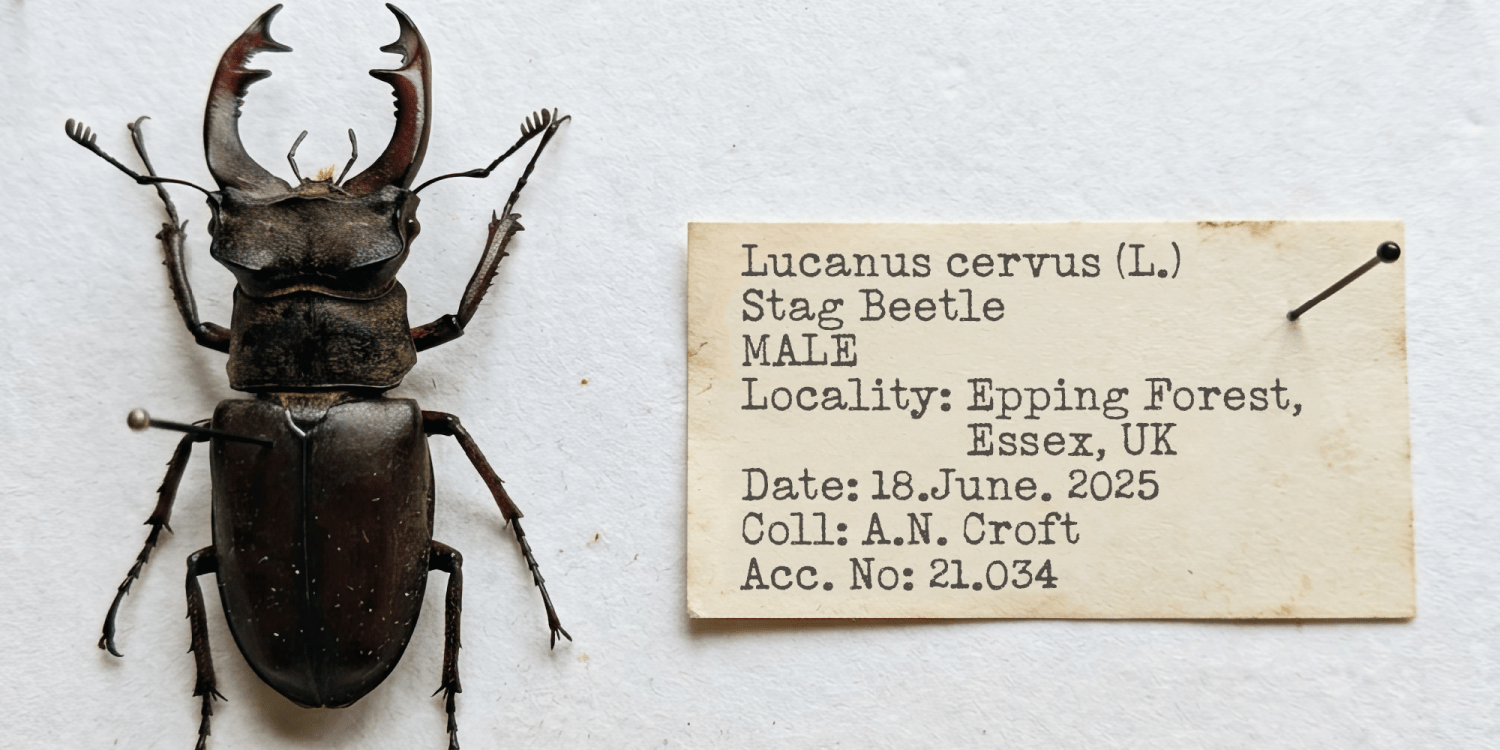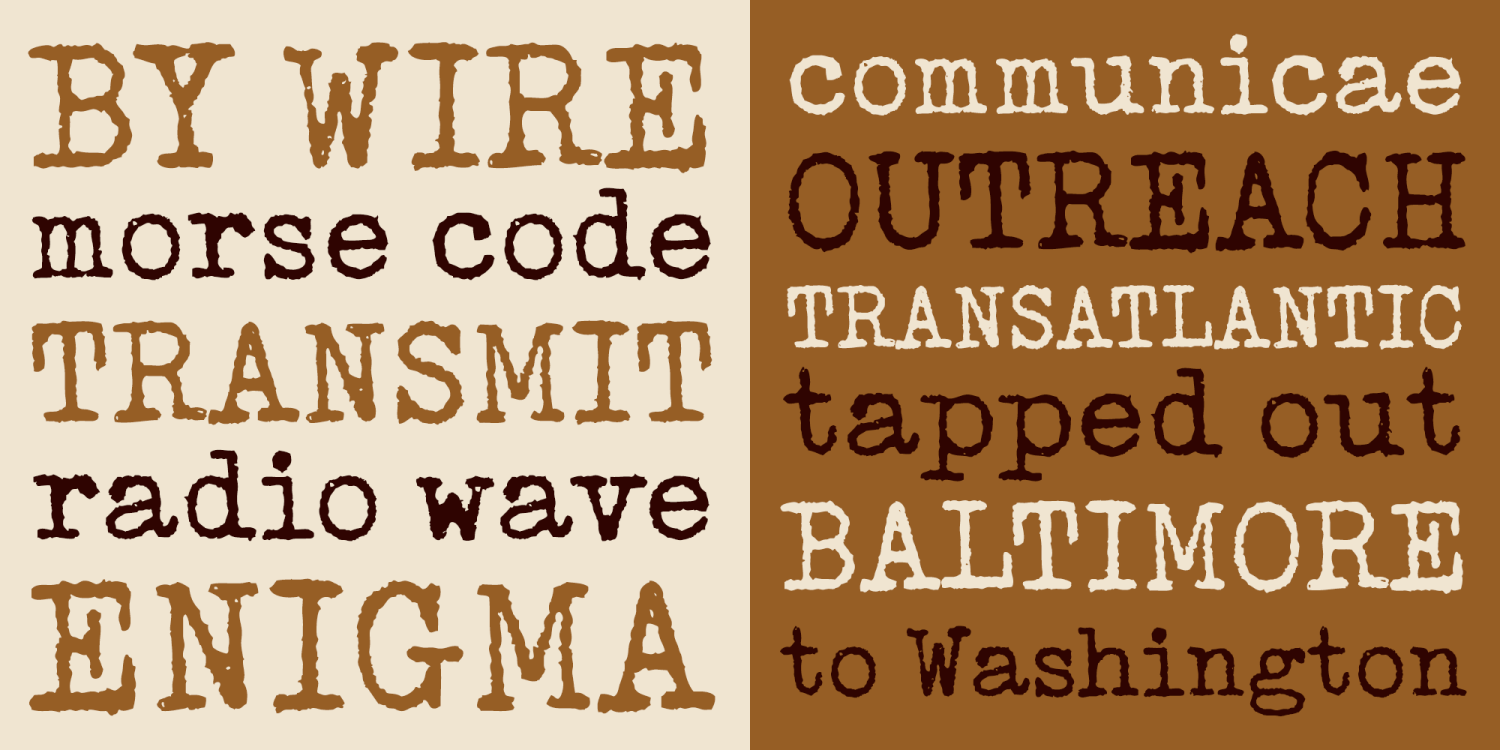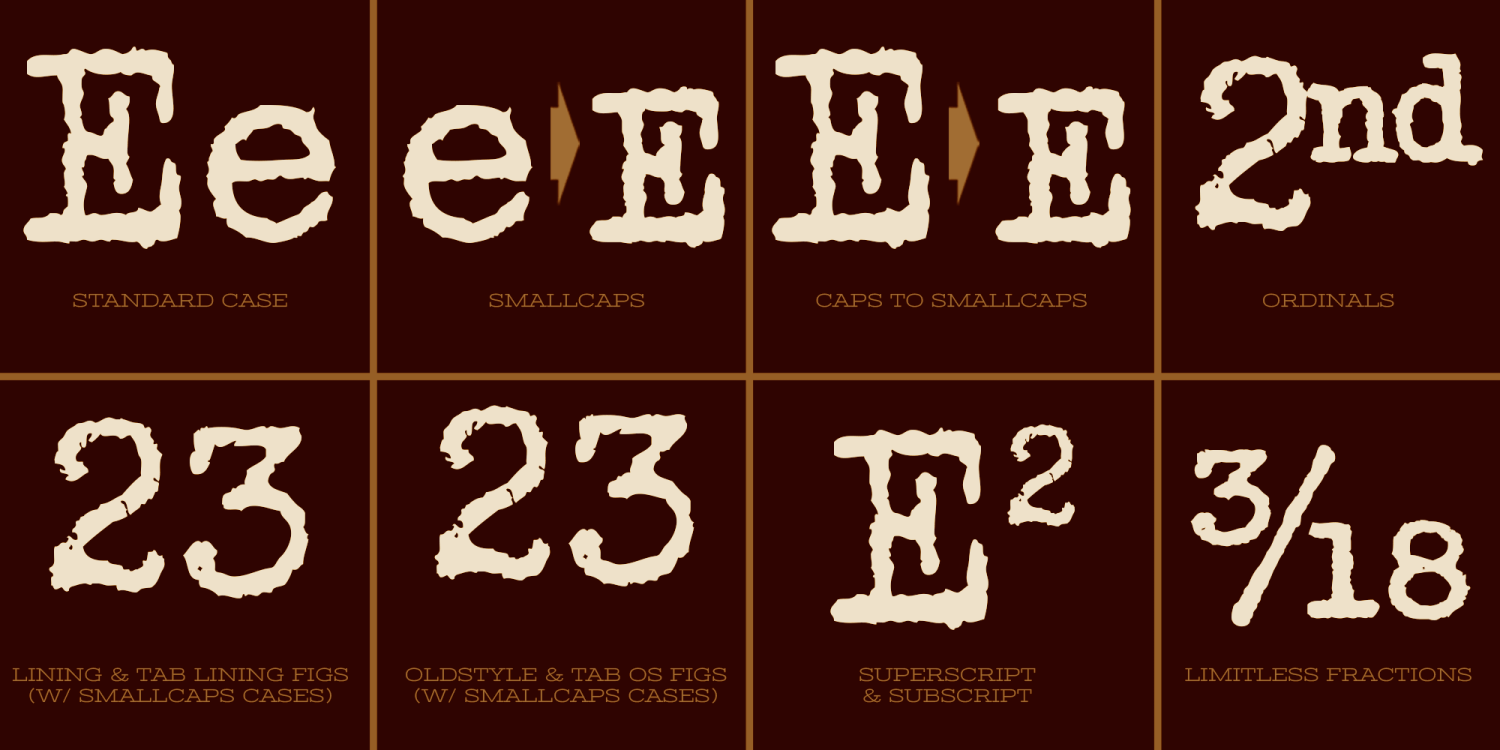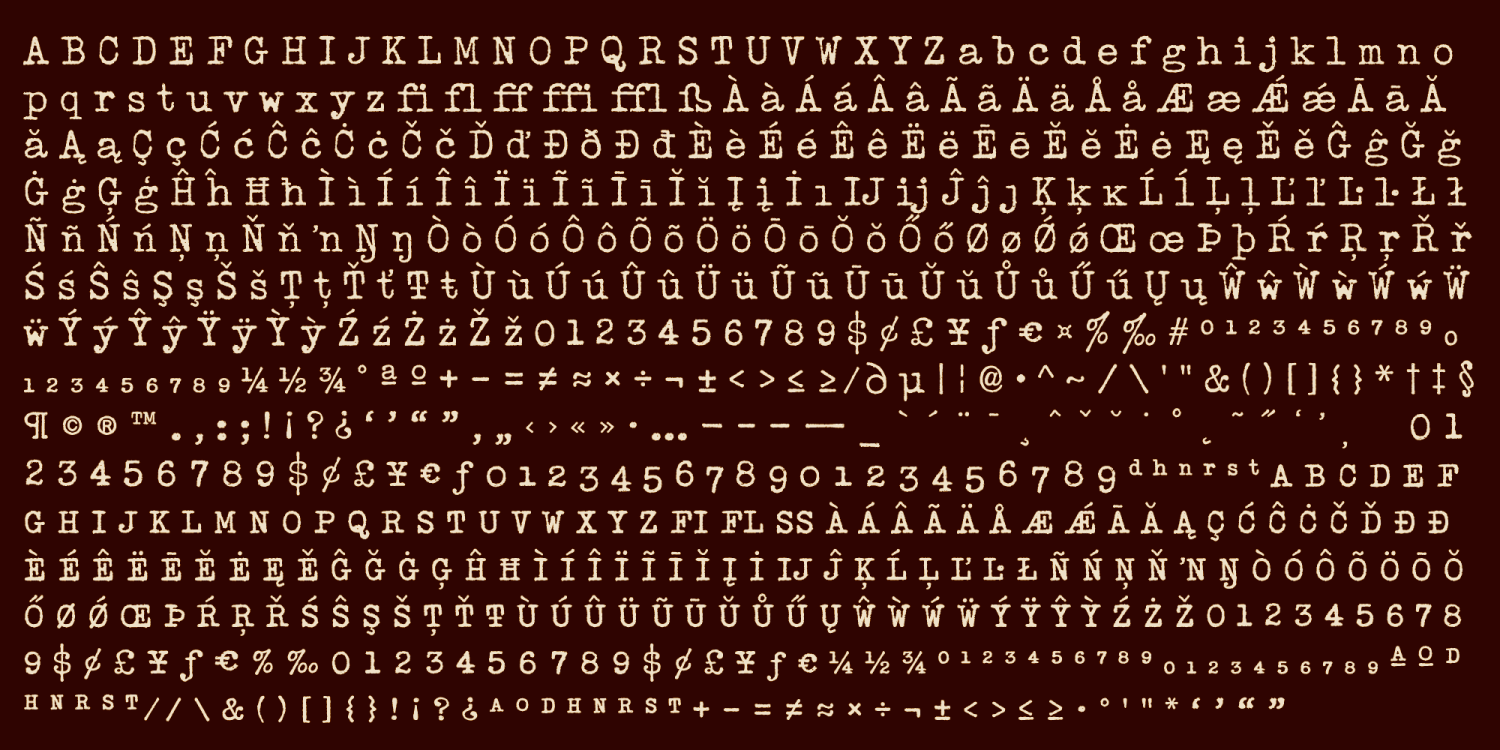
Distressed Telegraph Font Family - Poster #1
Distressed Telegraph Font Family - Poster #2
Distressed Telegraph Font Family - Poster #3
Distressed Telegraph Font Family - Poster #4
Distressed Telegraph Font Family - Poster #5
Distressed Telegraph Font Family - Poster #6
Distressed Telegraph Font Family - Poster #7
Distressed Telegraph Font Family - Poster #8
Distressed Telegraph Font Family - Poster #9
About Distressed Telegraph
Our Distressed Telegraph brings the unique individuality of the Large Elite Type No. 44 vintage typewriter keyset to the digital age. Vintage typewriters evoke a warmth and comfort to them, primarily because of their unpredictable "grunge" results from force of keystrokes to ribbon and paper. The SmallCaps and extensive figure sets add a more serious note to the nature of the typeface.
See the 5th graphic for a comprehensive character map preview.
Opentype features include:
SmallCaps.
Full set of Inferiors and Superiors for limitless fractions.
Tabular, Proportional, and Oldstyle figure sets (along with SmallCaps versions of the figures).
Stylistic Alternates for Caps to SmallCaps conversion.
The Distressed Telegraph font family includes 672 glyphs.
Distressed Telegraph by Stiggy & Sands
Character Map (672 Glyphs)